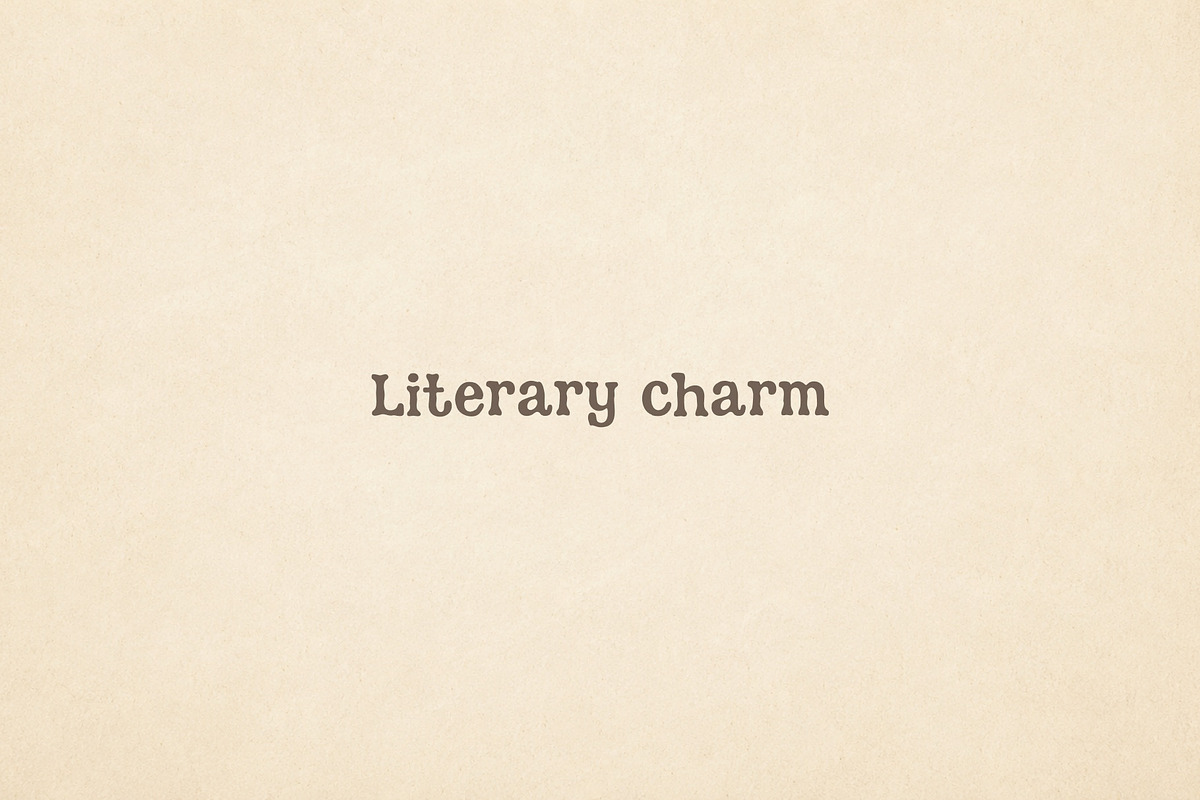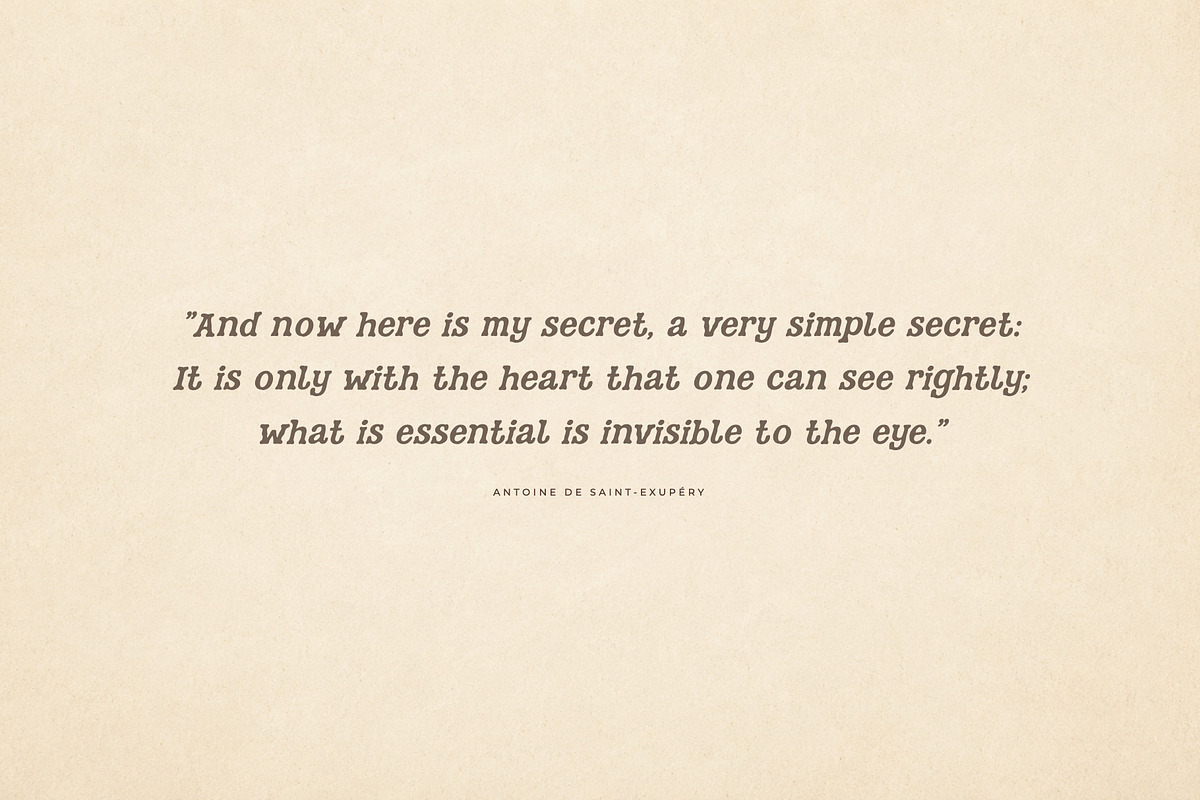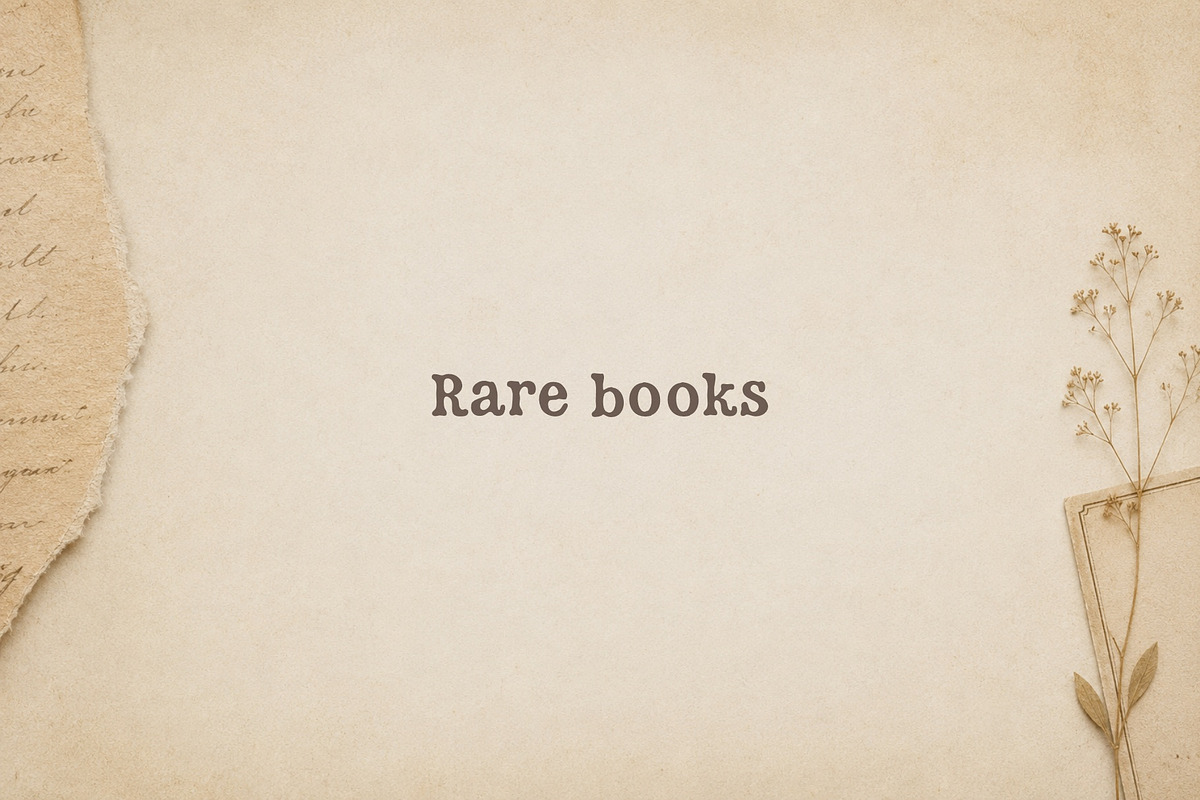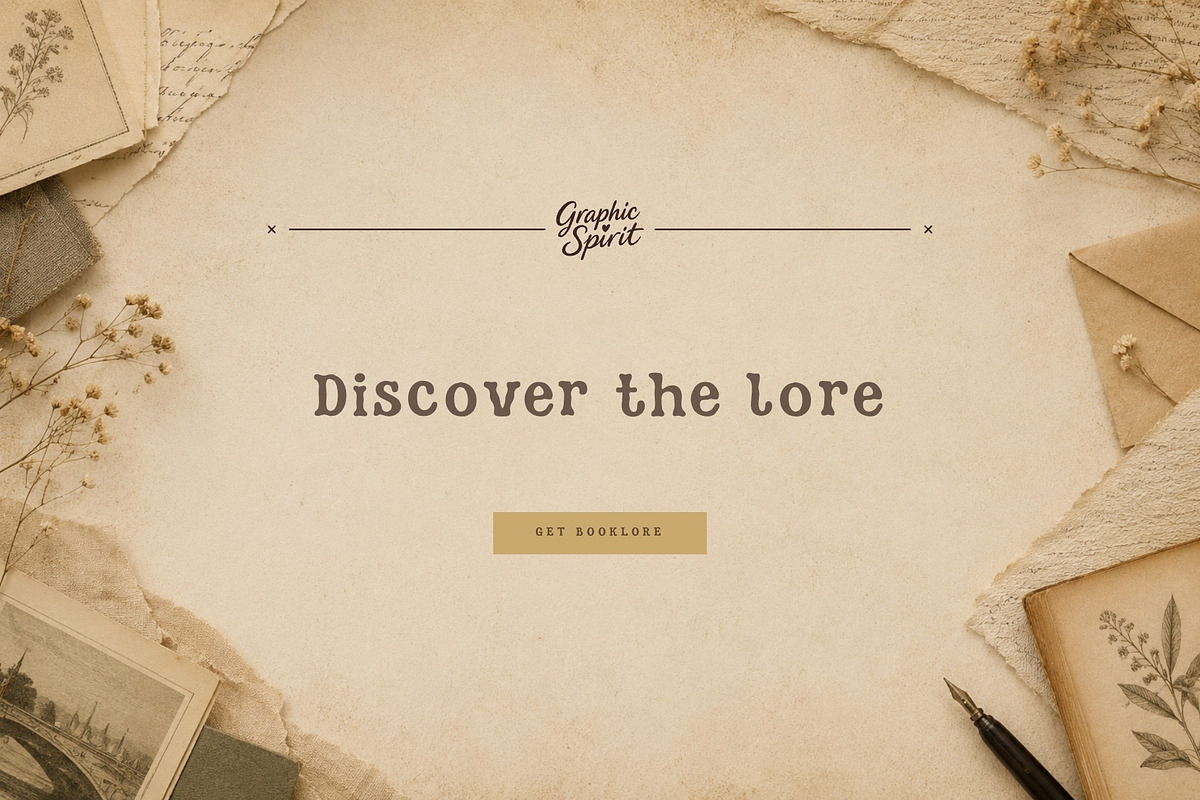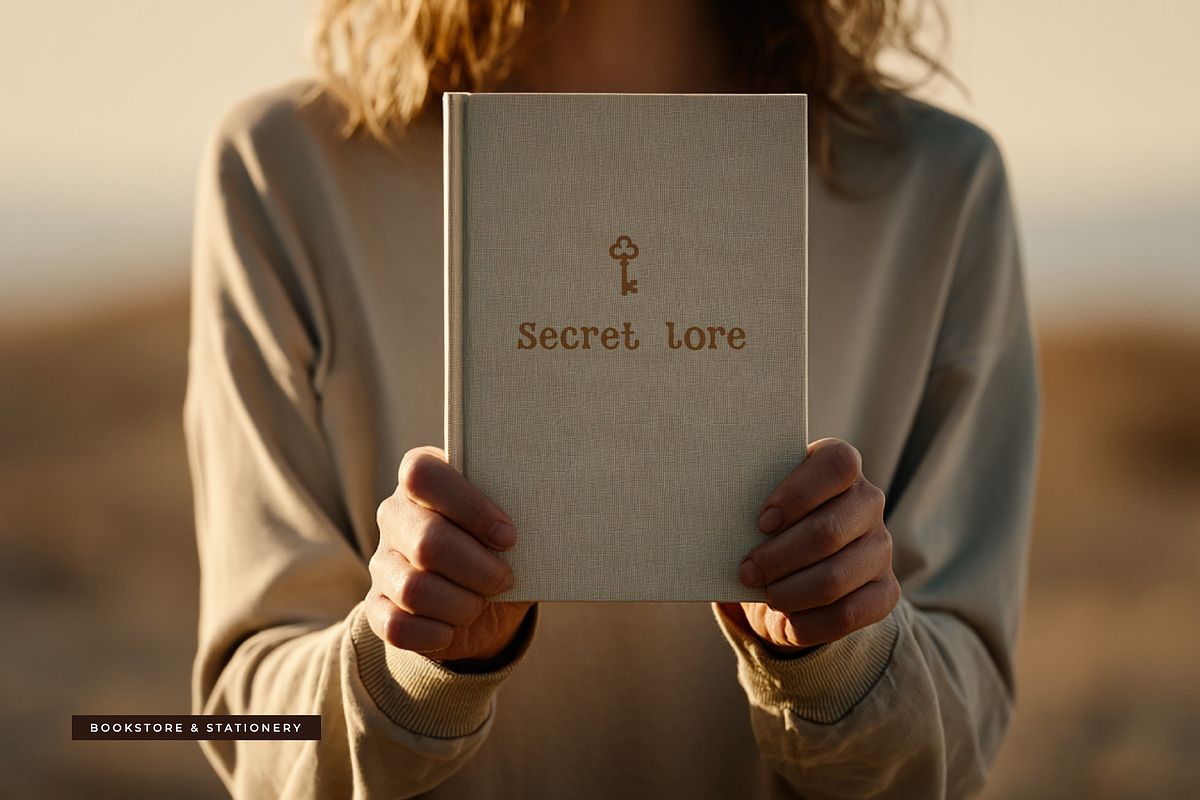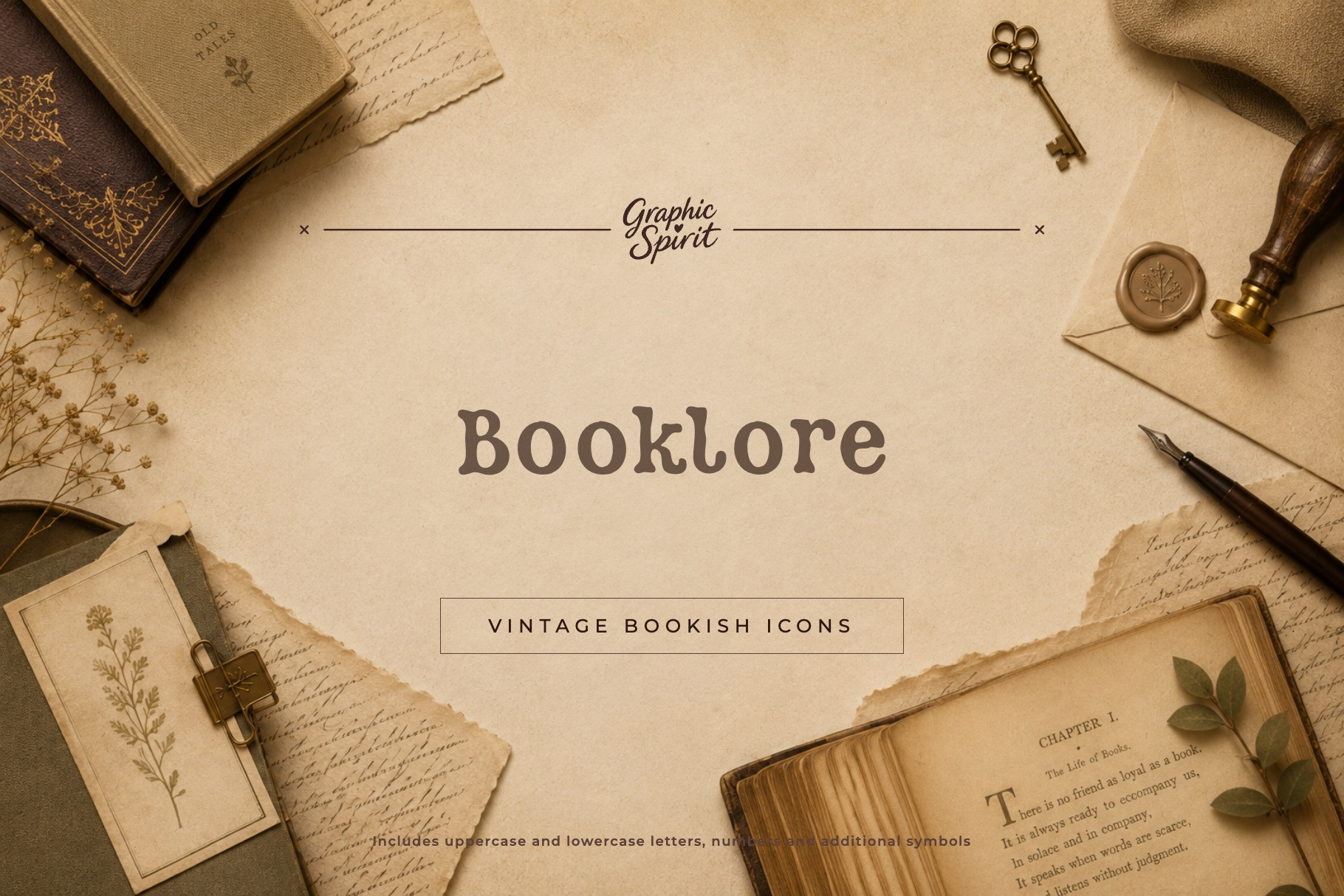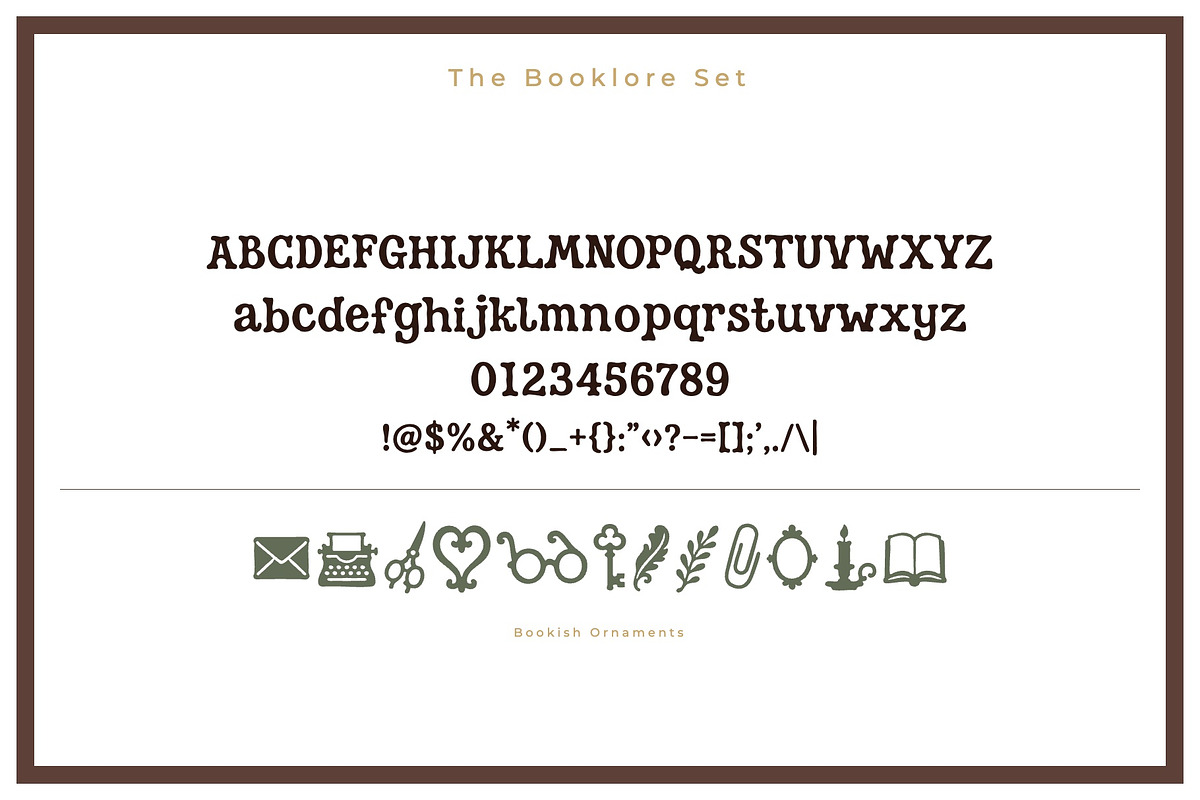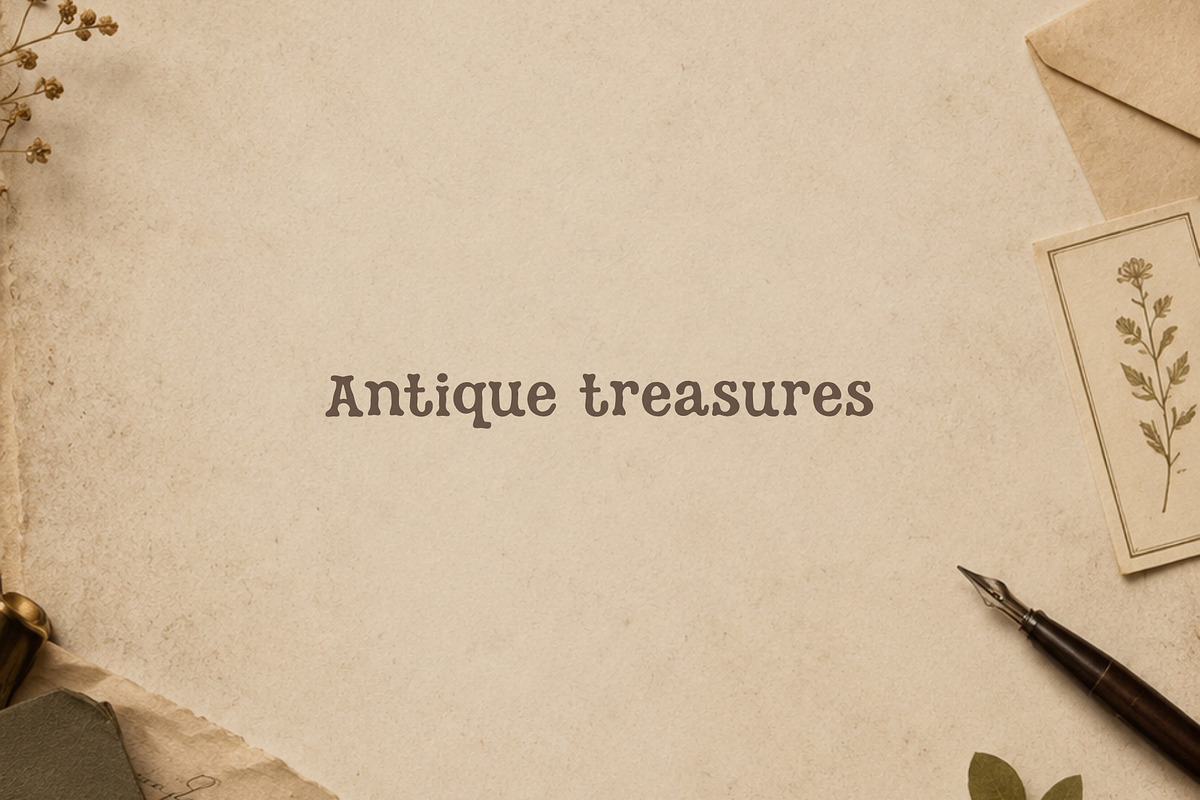
Booklore Font
✨ Booklore is a vintage bookish display font with antique literary charm, soft archive tones, and cozy bookstore character. It was created for designers, makers, and small brands who need expressive typography with a clear visual personality.
🎨 Booklore works beautifully for book covers, bookstore branding, literary posters, stationery labels, library graphics, vintage packaging, reading journals, editorial titles. The style is strong enough for headlines and product names, but still friendly enough for approachable branding, packaging, posters, labels, social graphics, and creative layouts.
💛 The typeface has a distinct display rhythm, so even short words feel designed and intentional. It is a useful choice when you want a project to feel crafted, memorable, and visually specific.
Best for:
- 📚 Book covers and literary titles
- 🕯️ Bookstore branding and library graphics
- ✒️ Reading journals and stationery labels
- 📜 Vintage packaging and editorial layouts
- ☕ Cozy bookish display typography
Includes uppercase and lowercase letters, numbers, punctuation, and additional symbols shown in the previews.